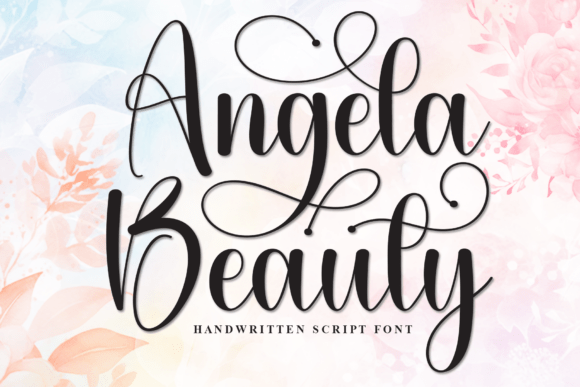
The Elegant Charm of Angela Beauty Font: A Designer’s Delight
I’ll never forget the time I was working on a wedding invitation project, and my client asked for a font that exuded elegance and playfulness. I scoured the internet, tried countless fonts, but nothing seemed quite right. That was until I stumbled upon Angela Beauty Font. With its flowing curves and natural rhythm, it instantly captured the essence of what my client was looking for. In this article, I’ll share my experience with Angela Beauty Font, its features, and how to make the most of it in your designs.
• ✅ Elegant and playful at the same time – perfect for a wide range of projects
• ✅ Flowing curves and natural rhythm give it a personal, charming touch
• ✅ Works beautifully for invitations, branding, and social media
• ✅ Easy to read and understand, even in smaller sizes
A Few Quirks to Keep in Mind 🤔
• ⚠️ Some letters may require manual kerning for optimal spacing
Practical Guide: Using Angela Beauty Font in Your Designs
Make sure to experiment with different font sizes, colors, and textures to make the most of Angela Beauty Font’s elegant charm.
The Story Behind Angela Beauty Font
Angela Beauty Font was designed with the intention of capturing the perfect balance between elegance and playfulness. The designer aimed to create a font that would add a personal touch to any project, while still conveying sophistication and creativity.
Q: What type of projects is Angela Beauty Font best suited for?
A: Angela Beauty Font is versatile and can be used for a wide range of projects, including invitations, branding, social media, and more.
Q: Is Angela Beauty Font easy to read?
A: Yes, Angela Beauty Font is designed to be easy to read and understand, even in smaller sizes.
Q: Can I use Angela Beauty Font in multiple languages?
A: Yes, Angela Beauty Font supports multiple languages, but make sure to check the font’s language support and character set.